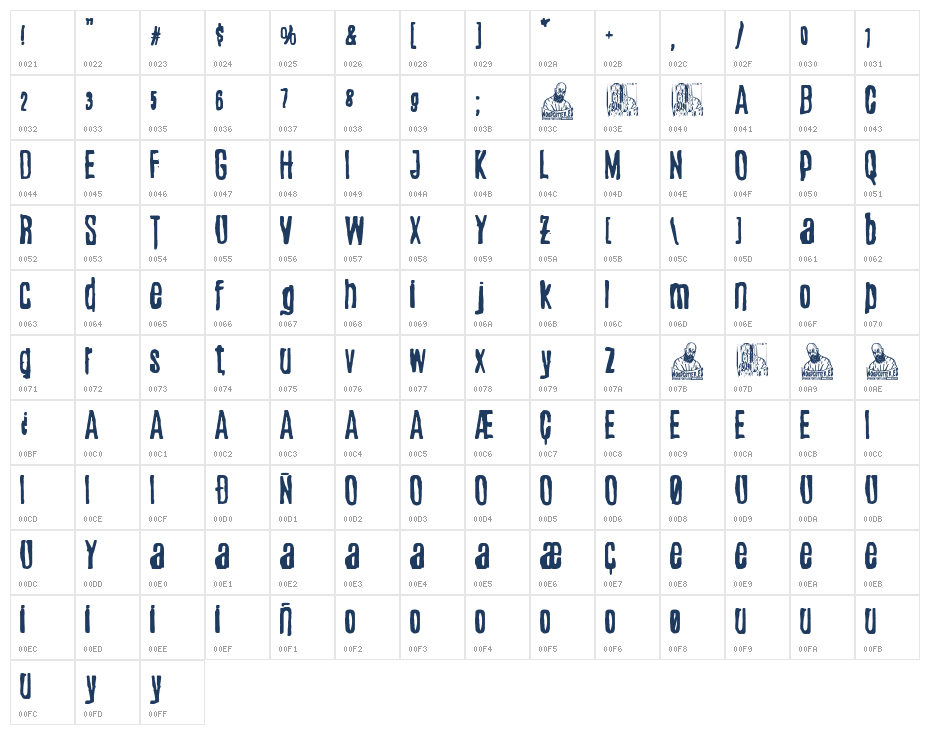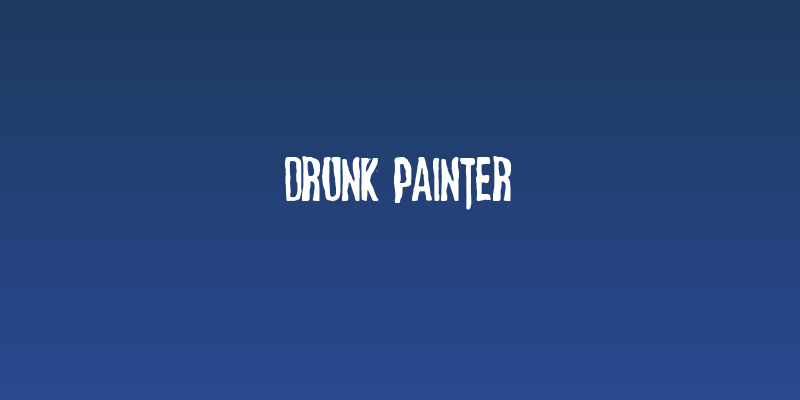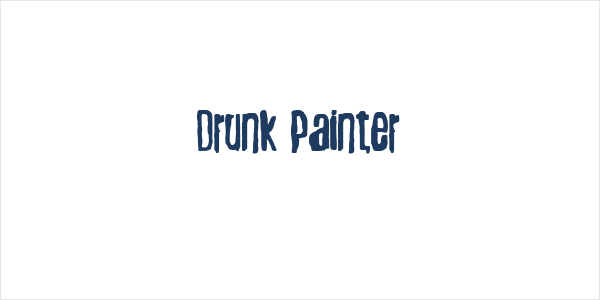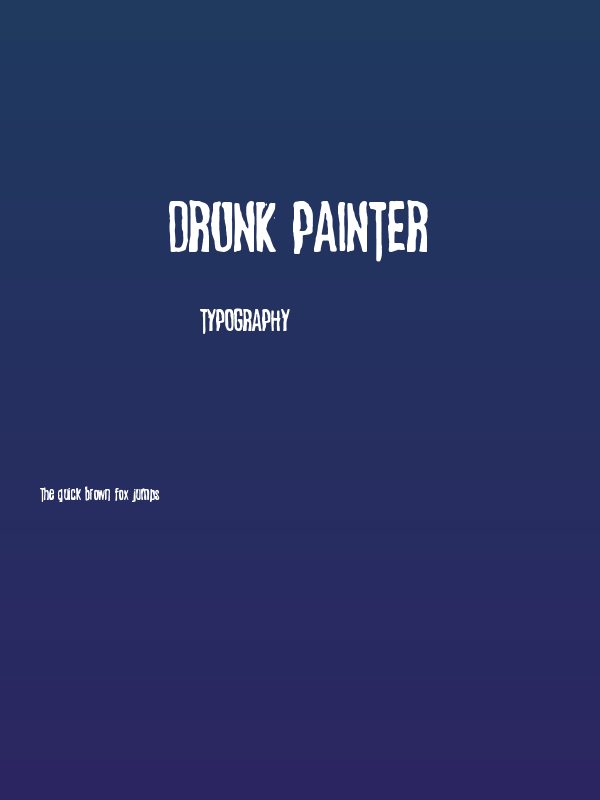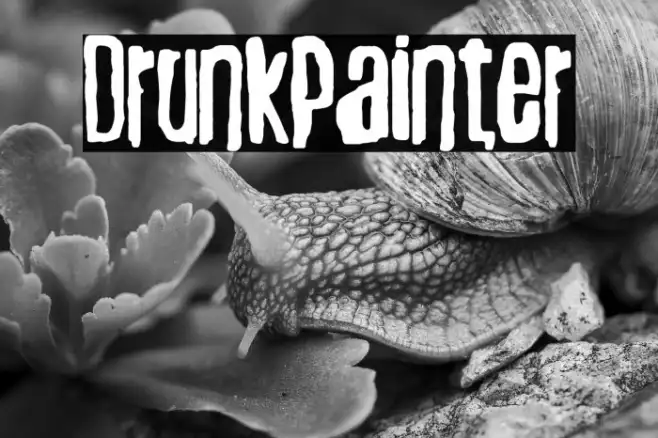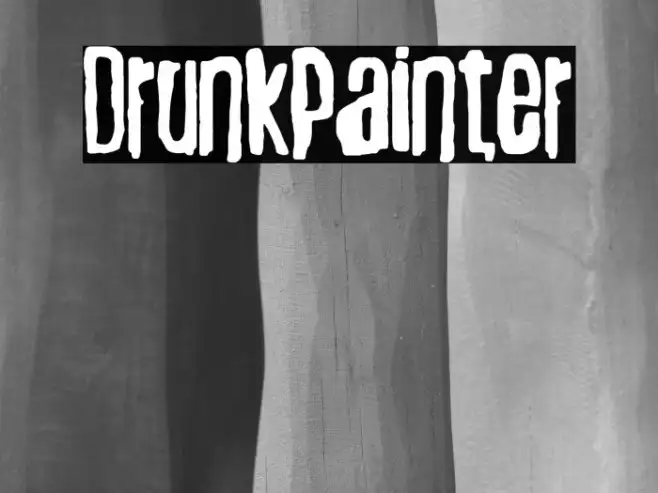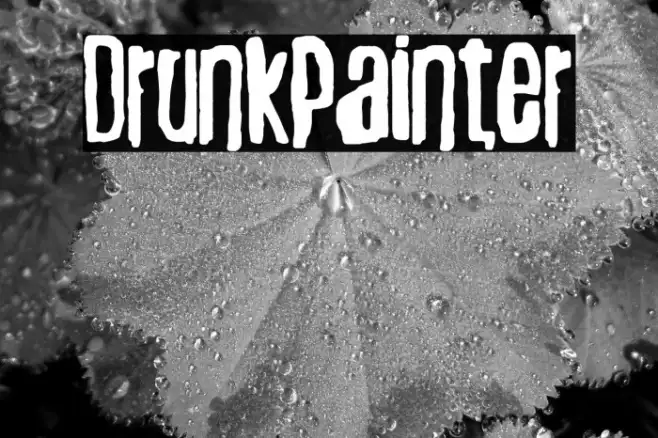
Drunk Painter Font
Drunk Painter Description
A playful, irregular, hand-drawn style font with a textured appearance, featuring both uppercase and lowercase letters, numbers, and various symbols.
| Overall Style | Playful, Handcrafted |
| Use Case | Headlines, Posters, Creative branding, Invitations |